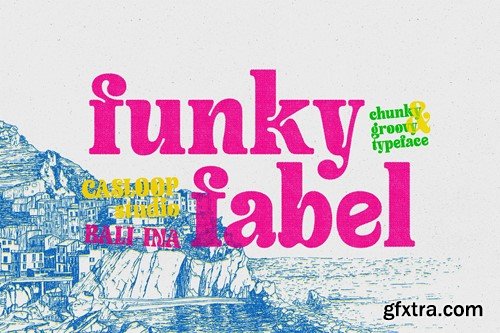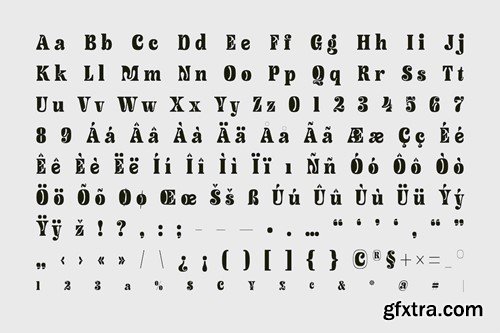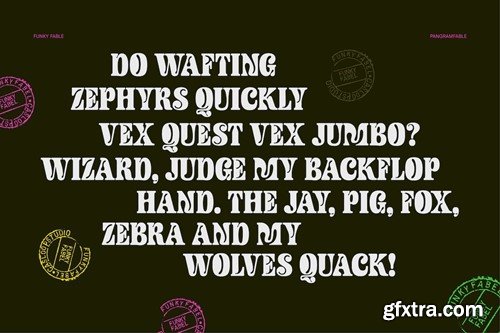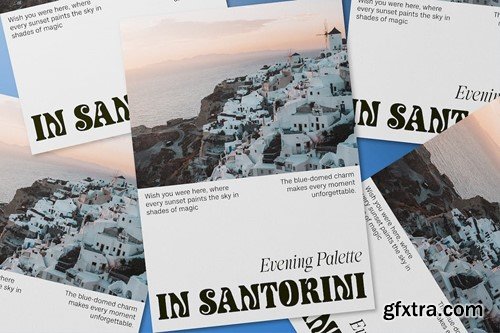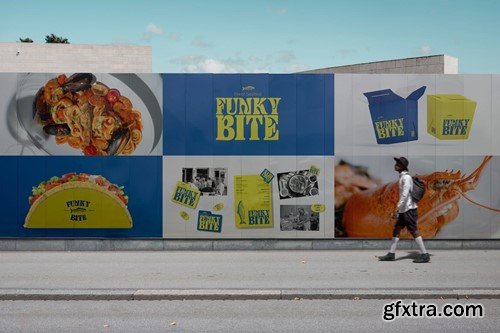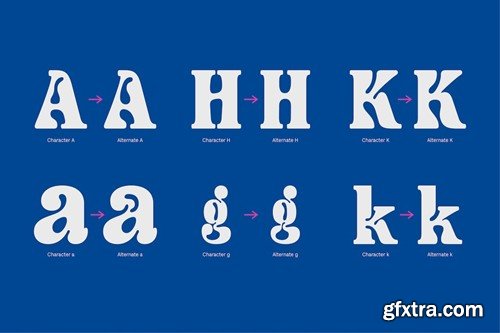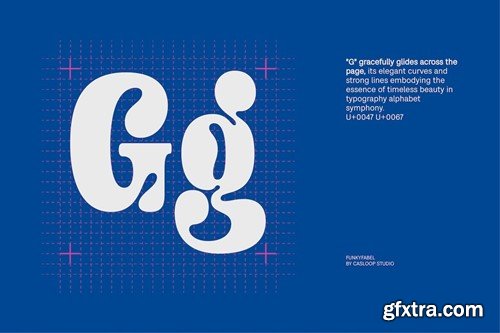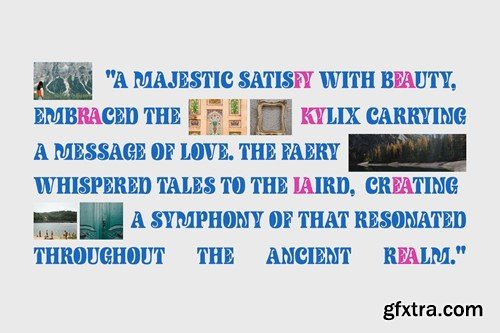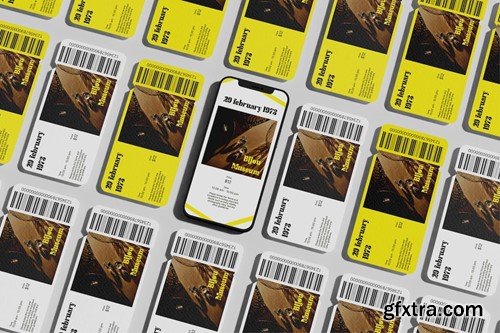
funky fabel - chunky bubble psychedelic retro font d87xrnu
Introducing our latest font creation, "Funky Fable," a captivating typeface that seamlessly weaves together diverse influences. This harmonious font encapsulates the essence of romance, celebration, and creativity with its eclectic blend of design elements. Perfectly suited for Valentine's Day or any occasion filled with love and joy, "Funky Fable" is a unique fusion of whimsical, retro, and kinetic styles. Drawing inspiration from various sources, such as the artistry of Chinese calligraphy, the vibrancy of cinematic aesthetics, and the deep cultural roots of Brittany, "Funky Fable" becomes a visual tapestry that tells a story of love and connection. The acid-inspired colors and bold strokes give the font a vibrant energy, symbolizing the enthusiasm of celebration. Infused with a touch of astrological mystique, the characters in "Funky Fable" seem to dance across the canvas, creating a cosmic harmony that echoes the patterns of the stars. The cursive elements gracefully intertwine, mimicking the elegant flow of constellations in the night sky. This premium font goes beyond mere letters; it's a visual buster that breaks free from conventional design boundaries. The anamorphic, dada-inspired shapes add a modern twist, inviting a sense of freeform expressiveness that sparks creativity. The fusion of Ashford's sophistication and the font's playful quirks results in a truly dynamic design. Supported Languages: Bosnian, Catalan, Czech, Danish, German, English, Spanish, Estonian, Finnish, French, Brice, Irish, Croatian, Gen z, Hungarian, Icelandic, Italian, Riso, Lithuanian, Latvian, Maltese, Dutch, Norwegian, Polish, Portuguese, Romanian, Print, Slovak, Slovenian, Albanian, Swedish, Turkish. Features : *Uppercase & lowercase *Numbers and punctuation *Ligatures and Alternates *Multilingual *PUA Encode File Includes: *FunkyFable-Bold.OTF *FunkyFable-Bold.TTF *FunkyFable-Bold.WOFF2 The soft, organic serifs of "Funky Fable" bring forth a casual and approachable charm, reminiscent of handwritten notes filled with heartfelt messages. Each letter exudes a bohemian vibe, creating a psychedelic spirit that sets this font apart from the ordinary. Whether crafting a Happy Holidays card, a romantic message, or an expressive piece of art, "Funky Fable" promises to infuse your project with personality and character. It's not just a font; it's a celebration of love, creativity, and the joy of expression. Embrace the unique and whimsical with "Funky Fable," a font that tells a story as enchanting as the words you create with it. This Font seamlessly integrates with design applications like Adobe Illustrator, Adobe Photoshop, Corel Draw, Affinity Designer. However, it's worth noting that its accessibility extends beyond traditional platforms; it can also be utilized on web-based applications such as Kittl, Canva, Artboard Studio, and more. Cheer from Casloop Bali! May this font bring vibrancy to your designs!